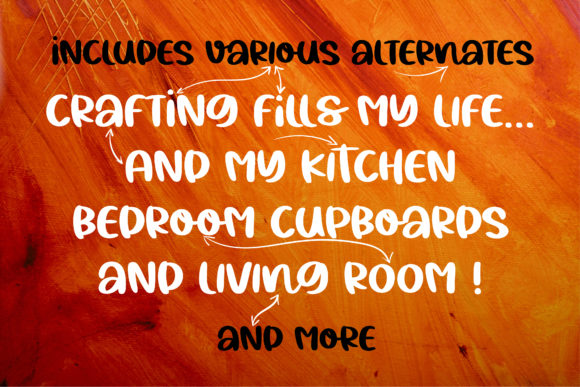
Typograft Crafty Font
About Typograft Crafty Font
Typograft Crafty is a great handwritten font. Its natural and unique style makes it incredibly fitting to a large pool of designs. Get inspired by its authentic feel and use it to create beautiful stationary art, eye-catching social media posts, and cute greeting cards!